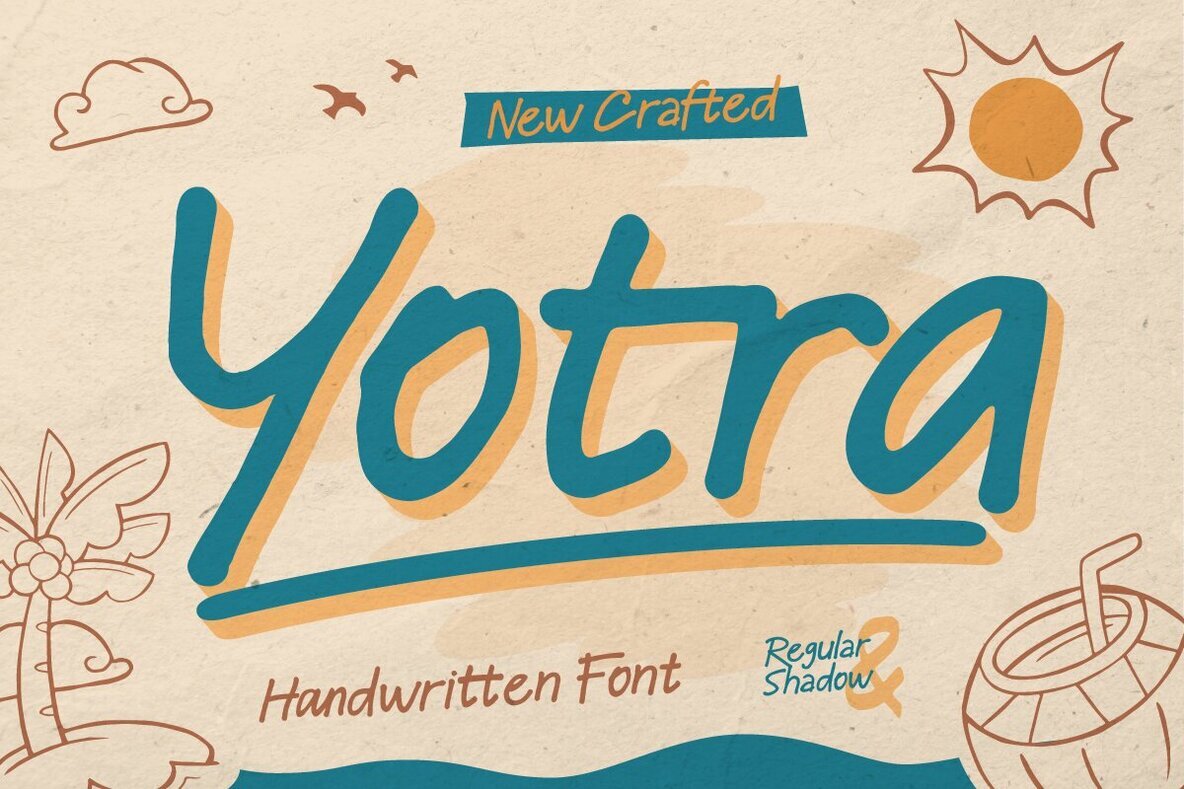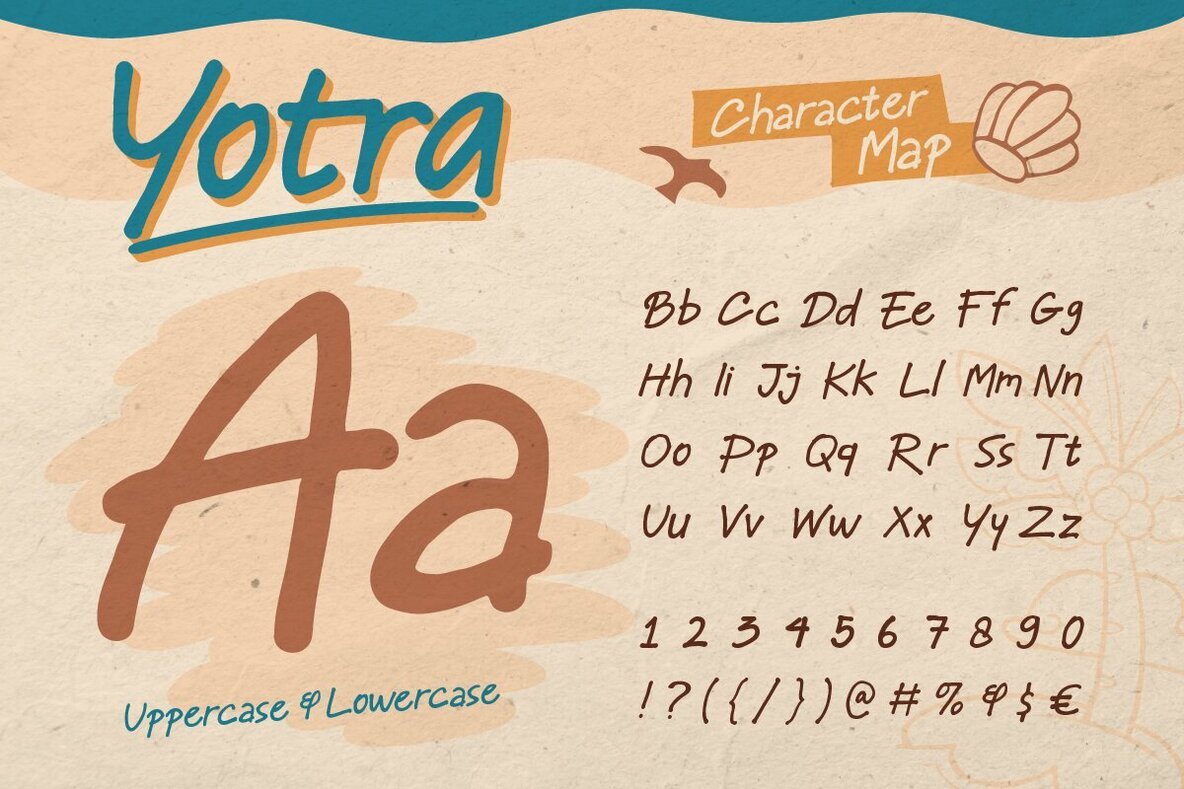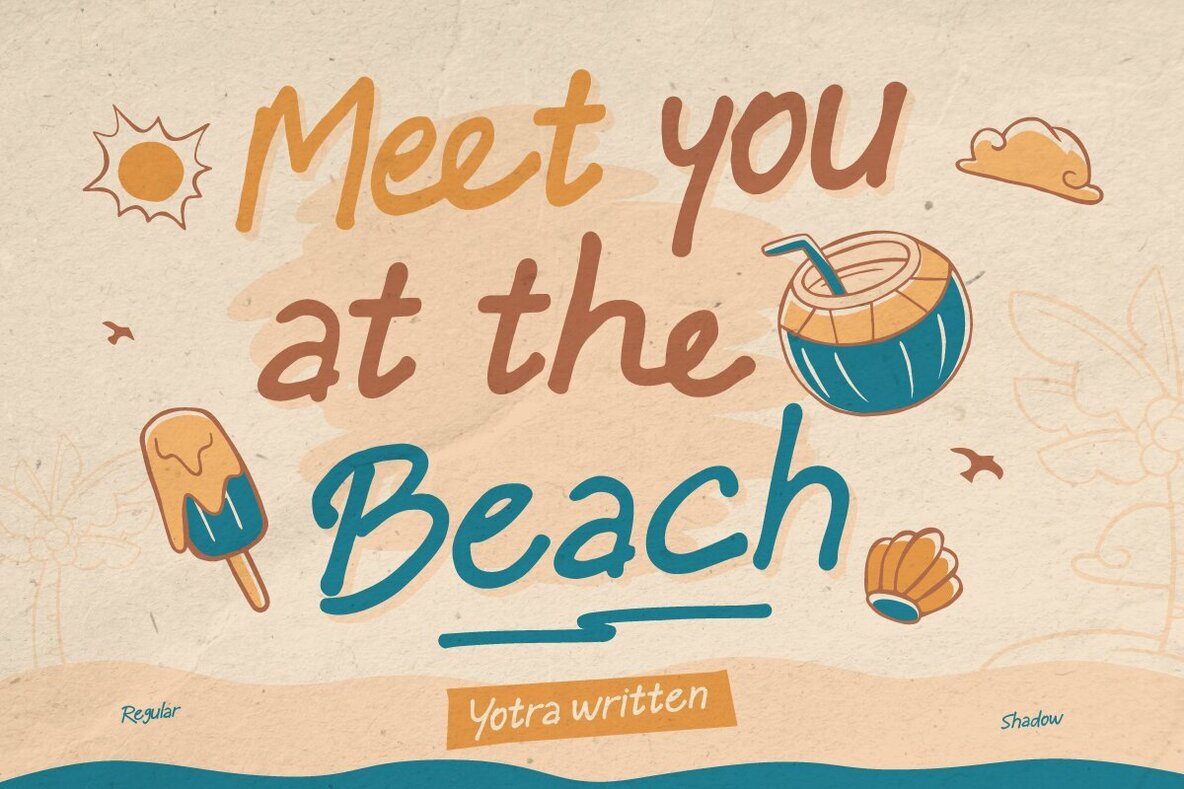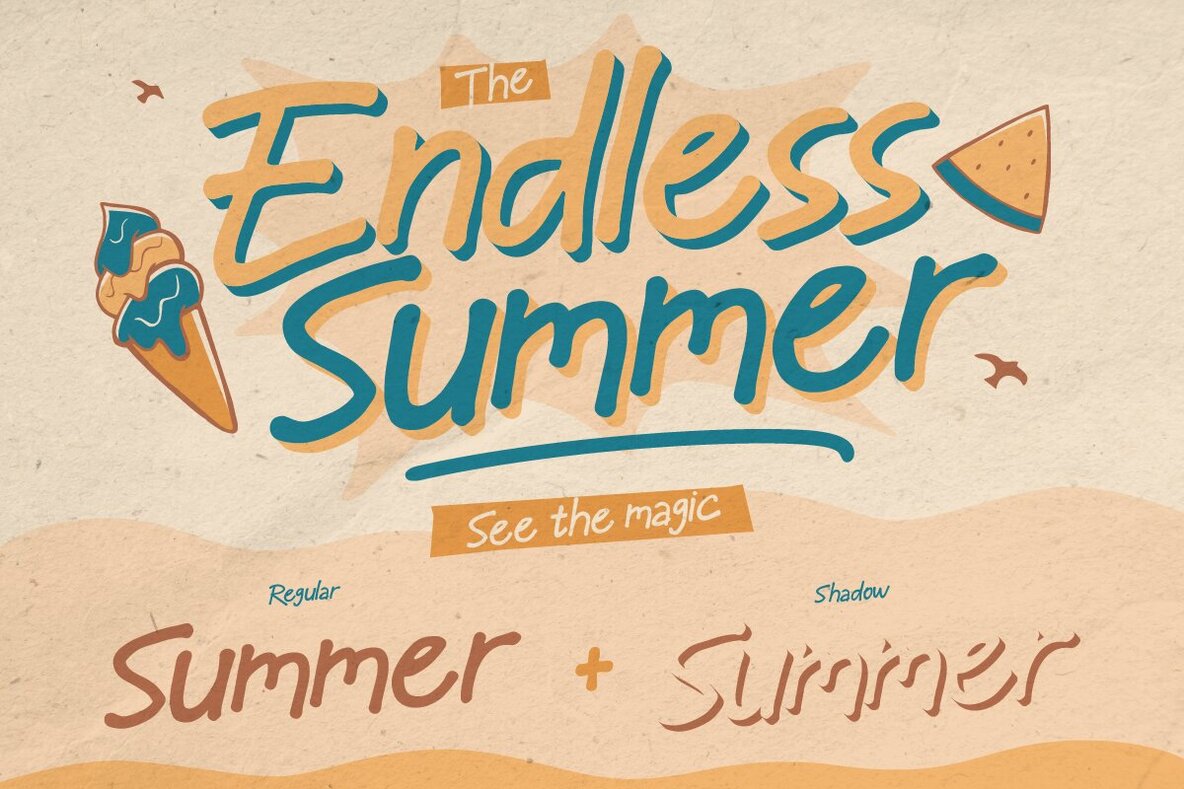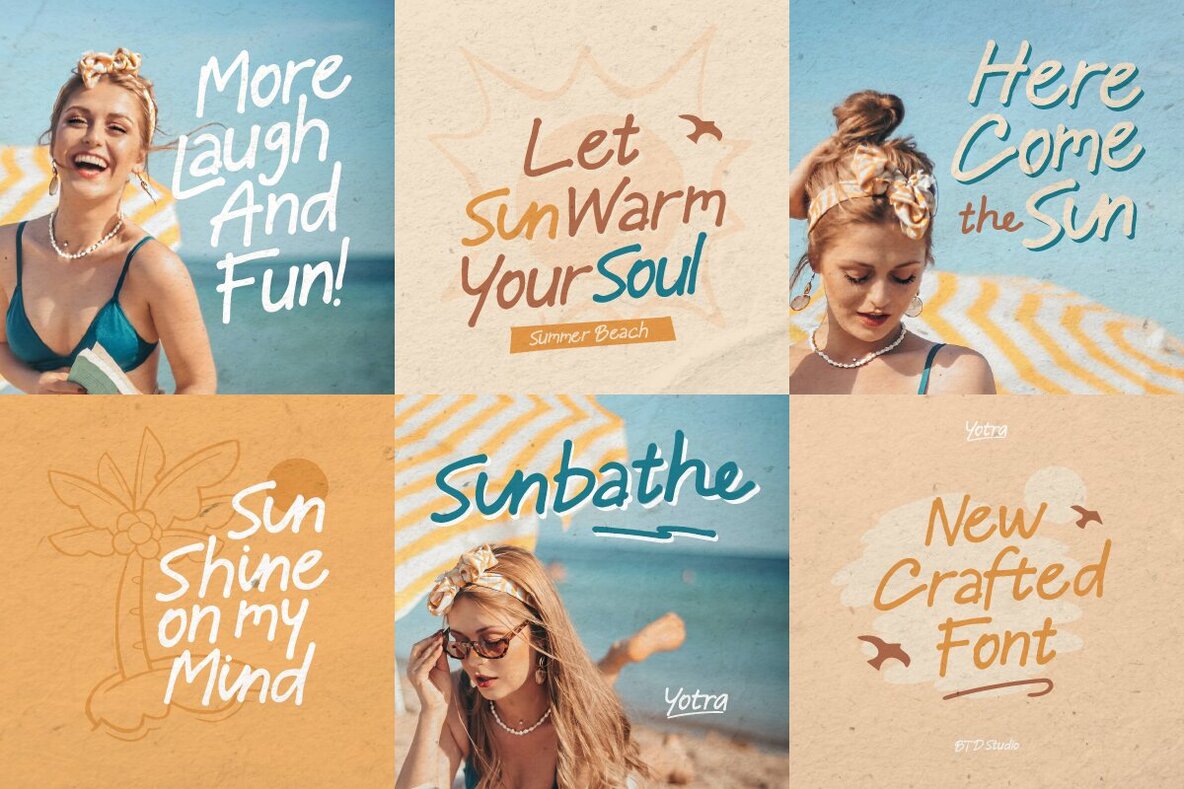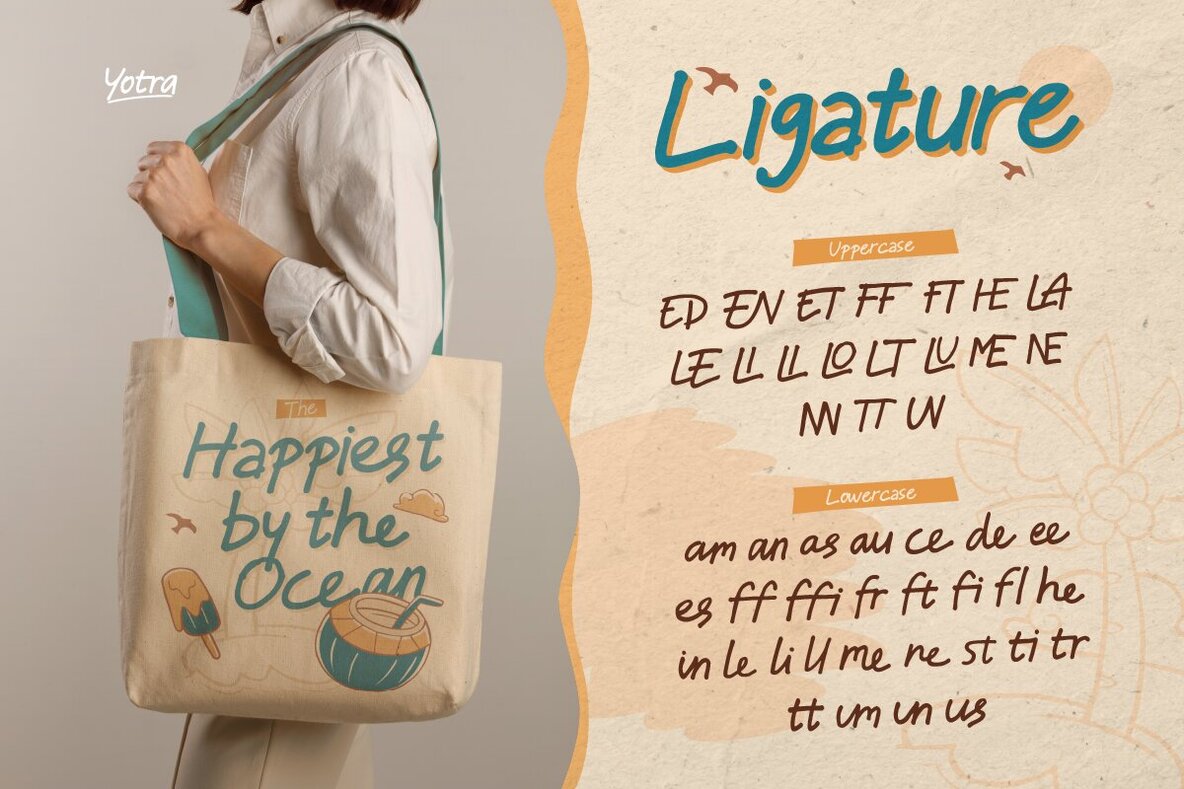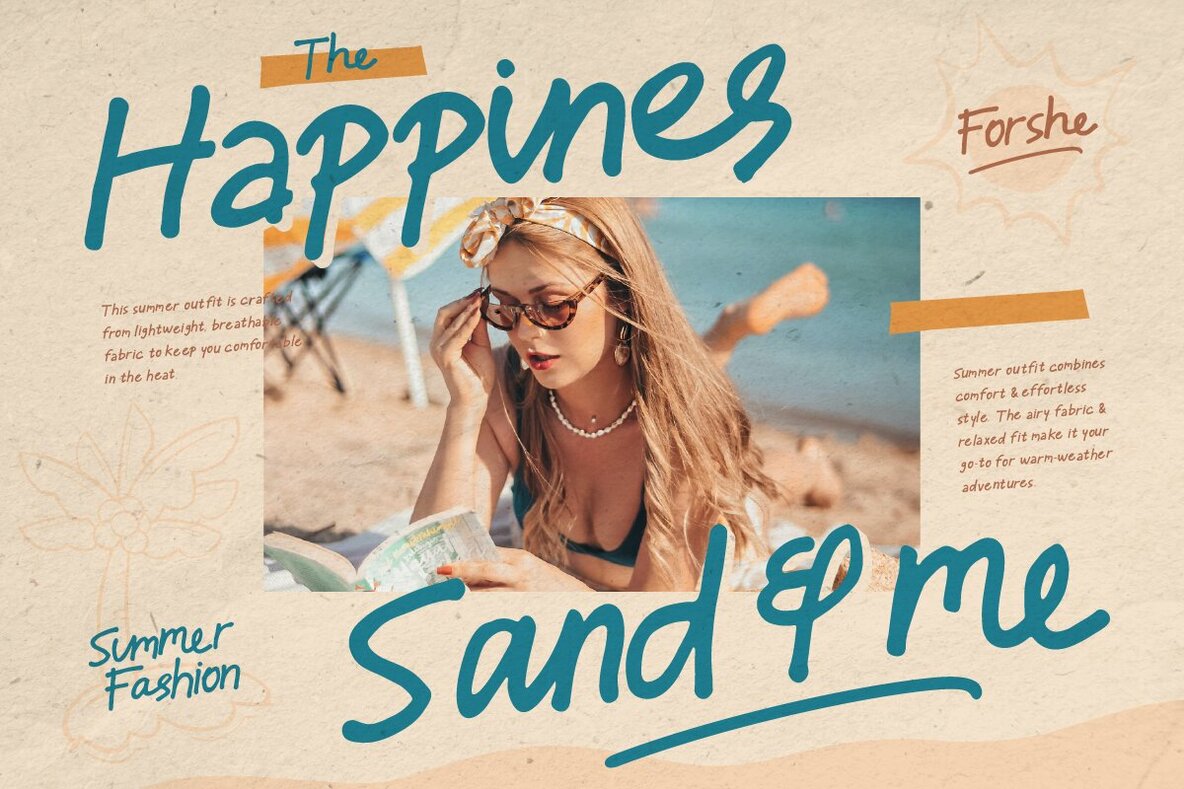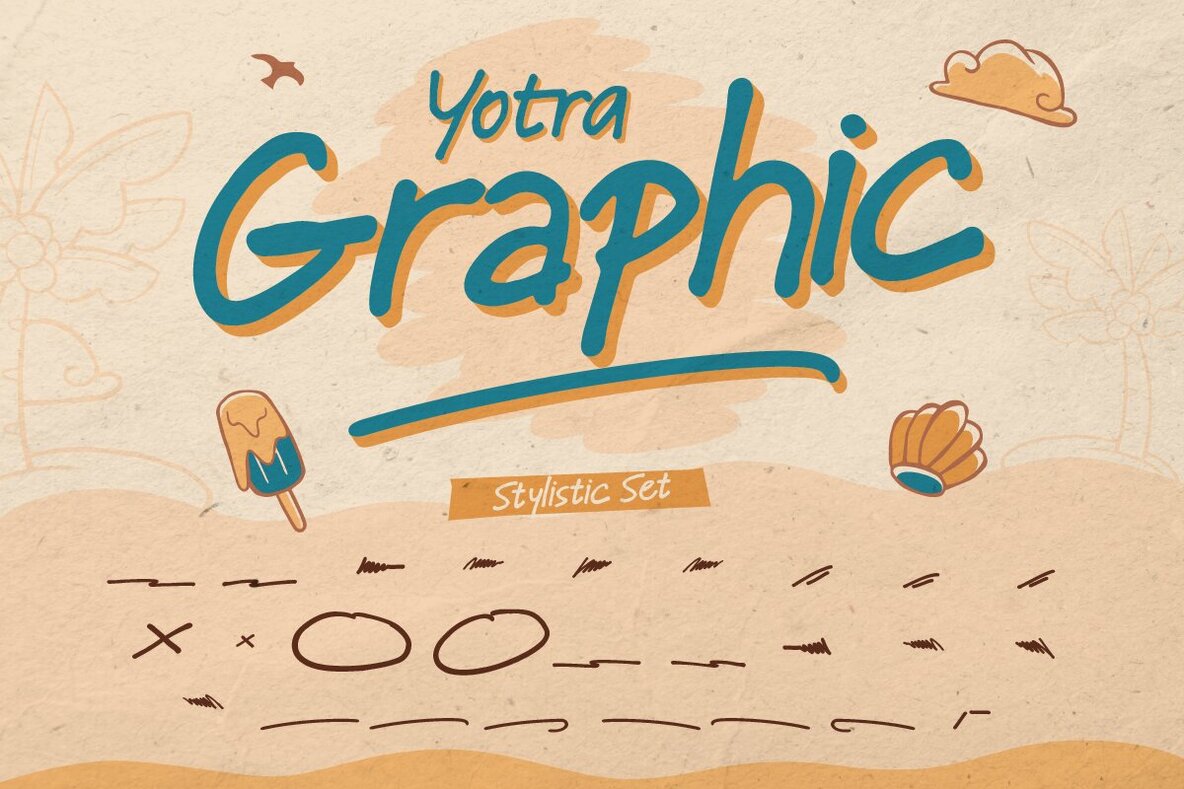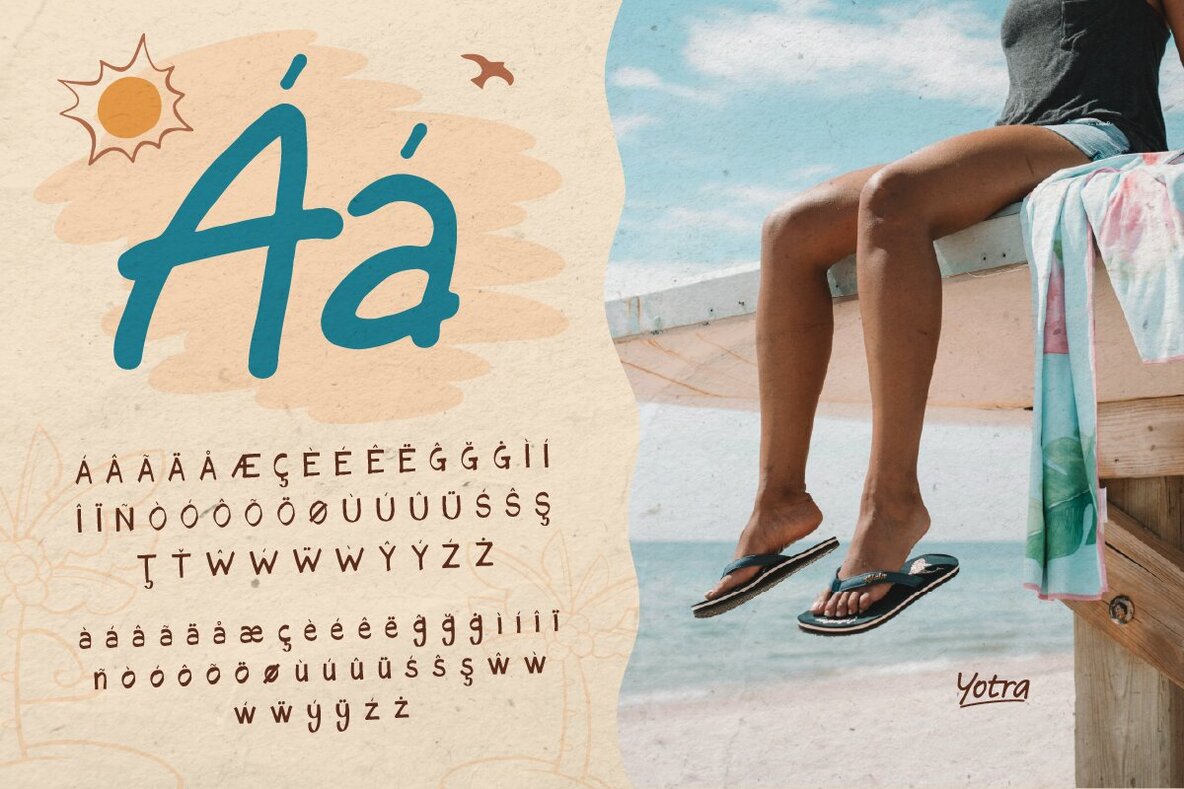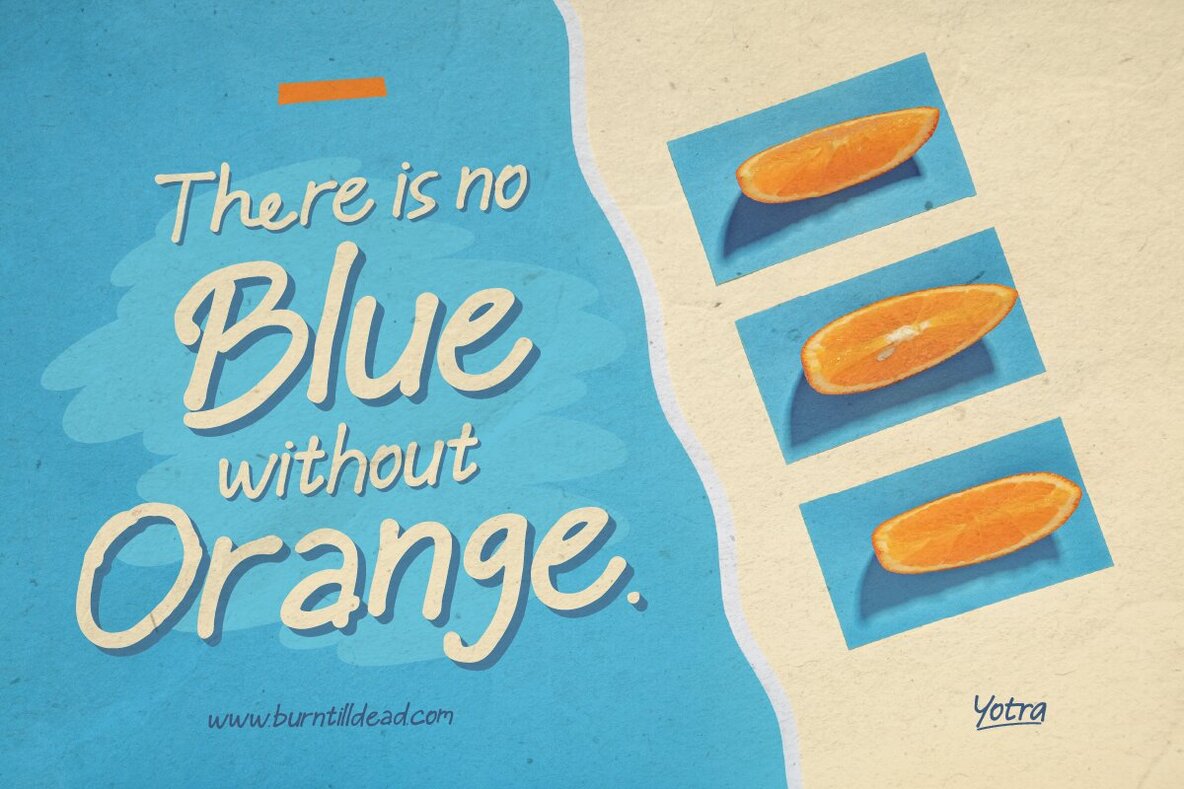
Yotra Font
Yotra Graphic Regular
Yotra Regular
Yotra Graphic Shadow
Yotra Shadow
Bring a burst of creativity to your projects with Yotra, a vibrant handwritten font that adds personality to any design. With four distinct styles—regular, shadow, graphic regular, and graphic shadow—Yotra offers diverse options to match your mood, maintaining a casual, handcrafted aesthetic without compromising readability. Perfect for posters, packaging, quotes, and children's books, Yotra's slightly untamed yet harmonious strokes infuse life and personality into your work. Its playful character suits summer-themed designs and any project craving a dash of fun and humanity. Ideal for designers seeking a fresh and engaging typeface with a human touch.Yotra: A Creative Handwritten Font